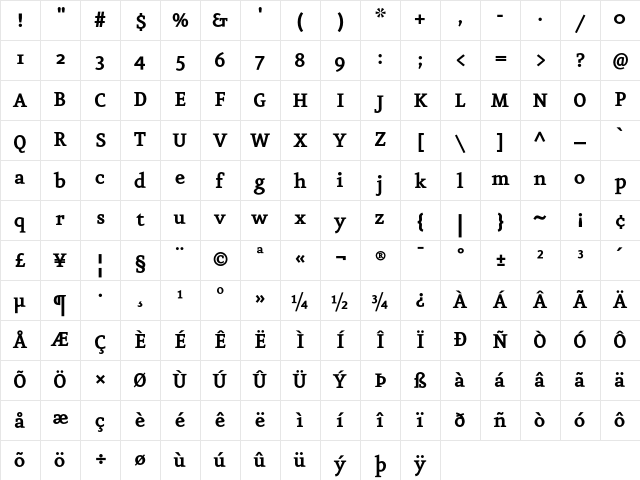
Complete Eureka Bold glyph index. Displaying only characters natively supported by Eureka Bold font.
Eureka is a composed and adaptable typeface that performs quietly and consistently across a wide range of design contexts. Its bold stroke weight gives it real presence on the page.